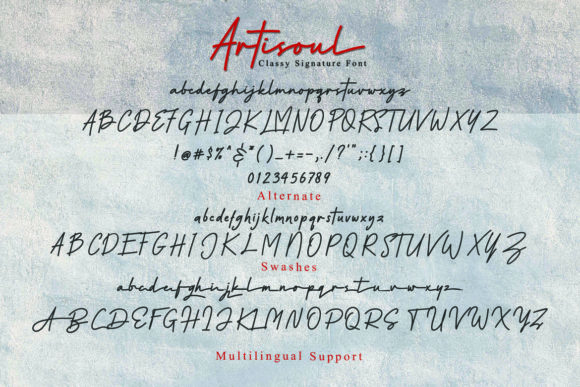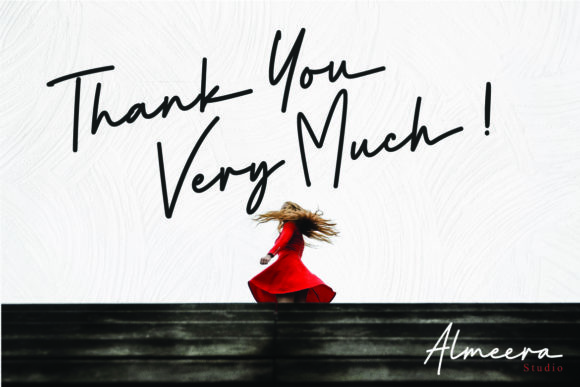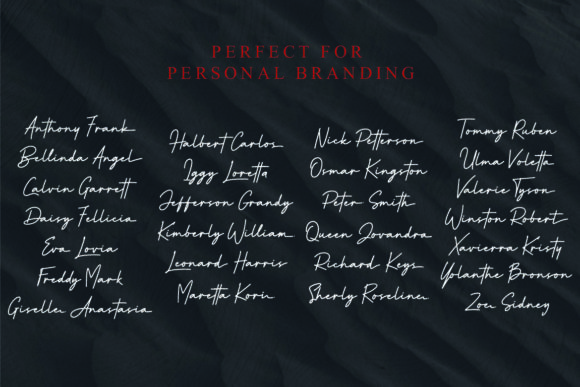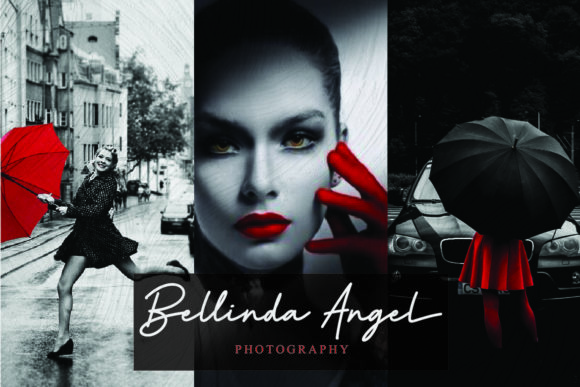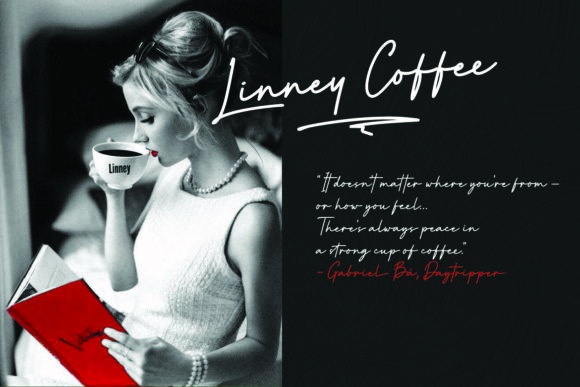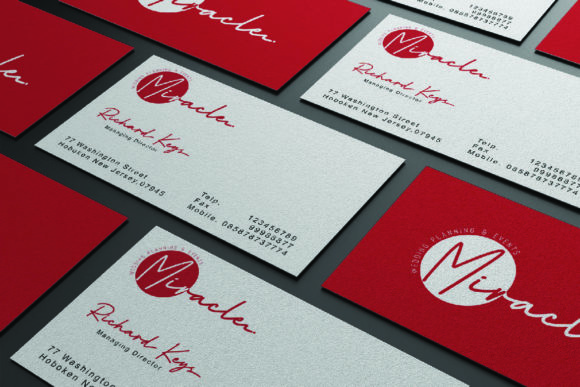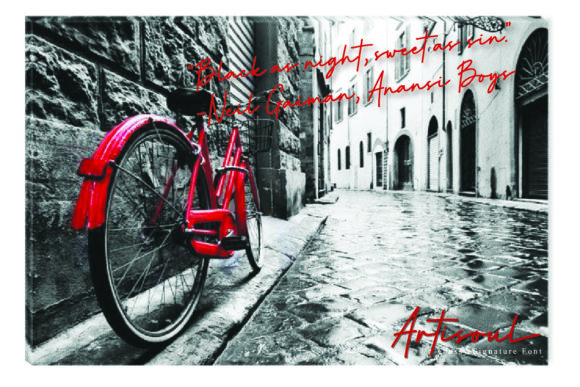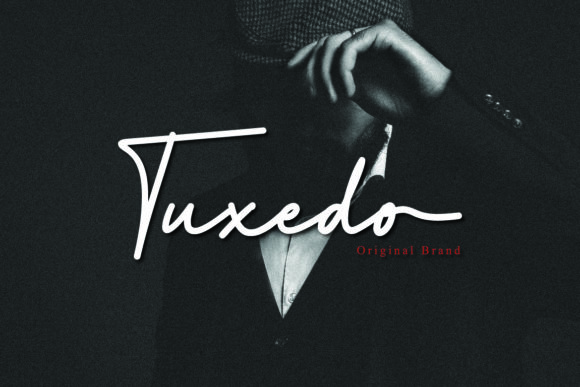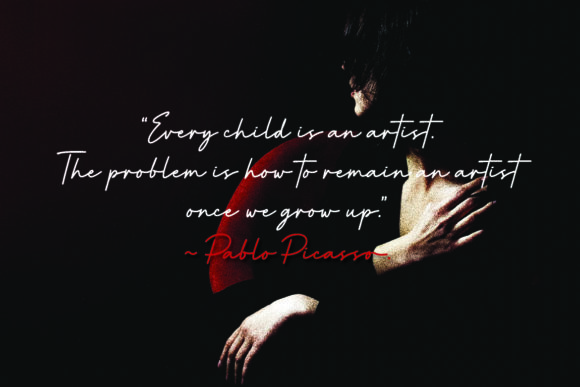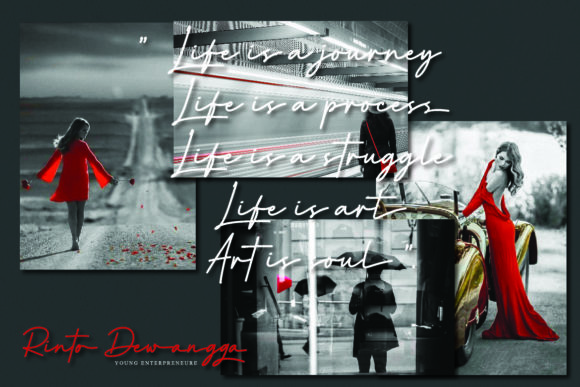
Artisoul Font
About Artisoul Font
Artisoul is a beautiful and classy handwritten font with an organic and smooth feel. It’s a ravishing script that will turn any crafting idea into a piece of art.